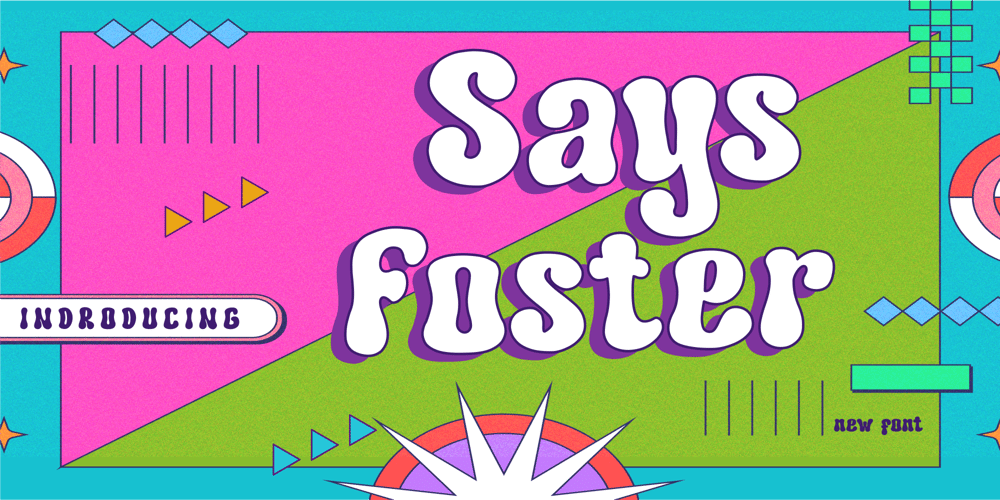
Says Foster
Says Foster font
Says Foster Font Family was designed by Hunaiza Aljahsy and published by HunaizaAljahsy. Says Foster contains 1 styles and family package options. Have a great day! My new font was present, Says Foster !!Says Foster is a Bold vintage style serif font with strong character and soft features. modern and classic serif font with a clear and bold look. It’s a very versatile font that works great in large.